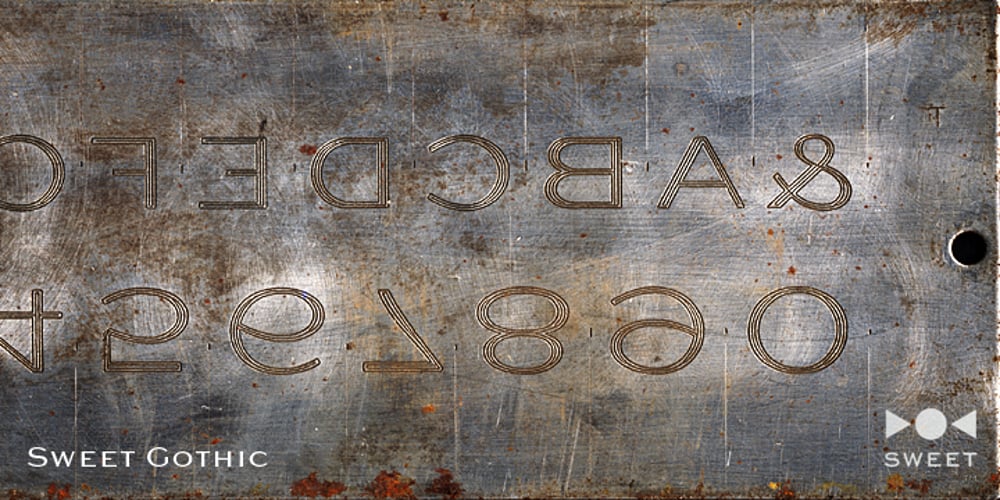
Sweet Gothic Font Family was designed by Mark van Bronkhorst, Linnea Lundquist and published by Sweet. Sweet Gothic contains 4 styles and family package options. Sweet Gothic is a 2009 addition to the Sweet Collection of engraved lettering styles from the 20th Century. Sweet Gothic Light is closely based on lettering from an engravers pattern from the early 1900s that was used for tracing letterforms with the engraving machine (pantograph) to make steel engraving plates. The design is related to many similar engravers gothics developed in the early 1900s, but as each engraving house created by hand their own patterns for popular styles of the time, there is variation among the models. Sweet Gothic offers contrast in stroke weight and its unique personality. The bolder weights are new designs, based on the characteristics of the Light. A serif variant (Sweet Gothic Serif) has also been developed to expand the usefulness of the family, offering an alternative to Copperplate Gothic. As such, most of the fonts are new designs, yet may seem familiar and ubiquitous given their model. The fonts offer two sizes of figures and monetary symbols: one set is intended for use with upper- and lowercase settings; the second set is the same height as the small caps.